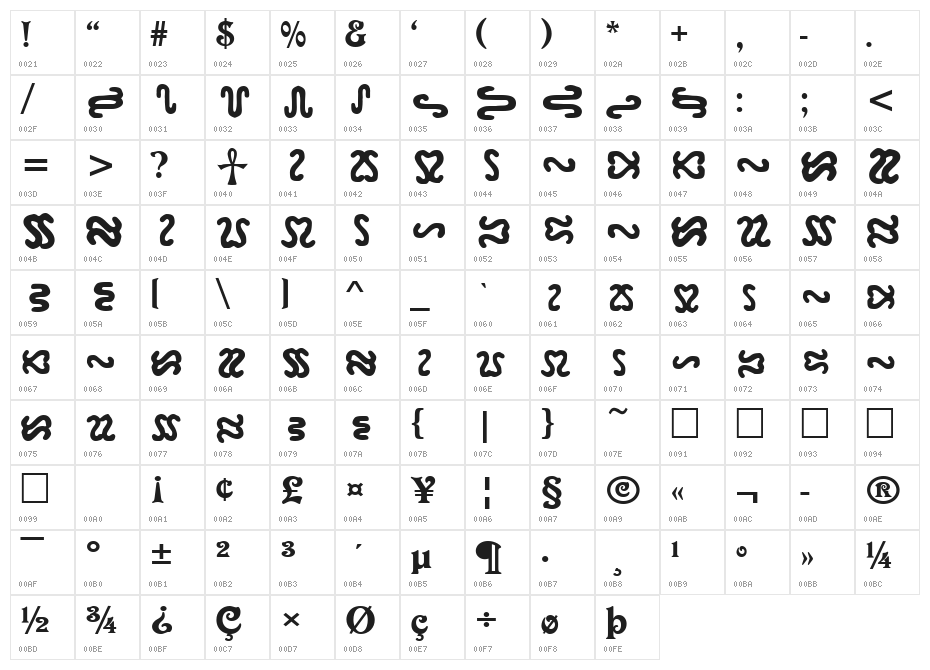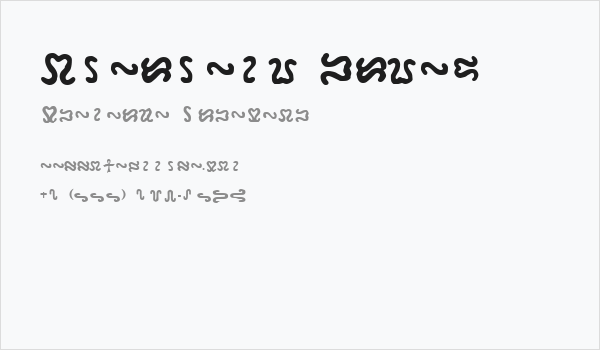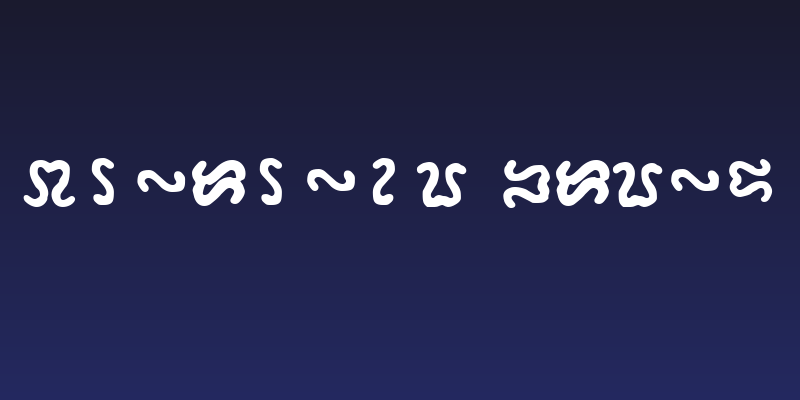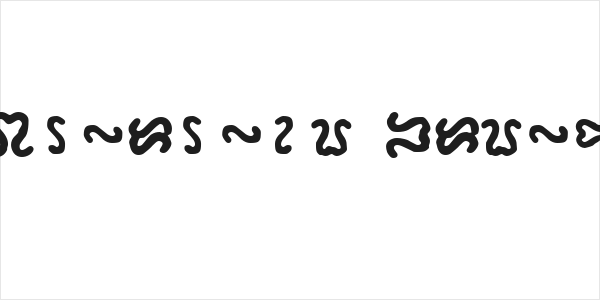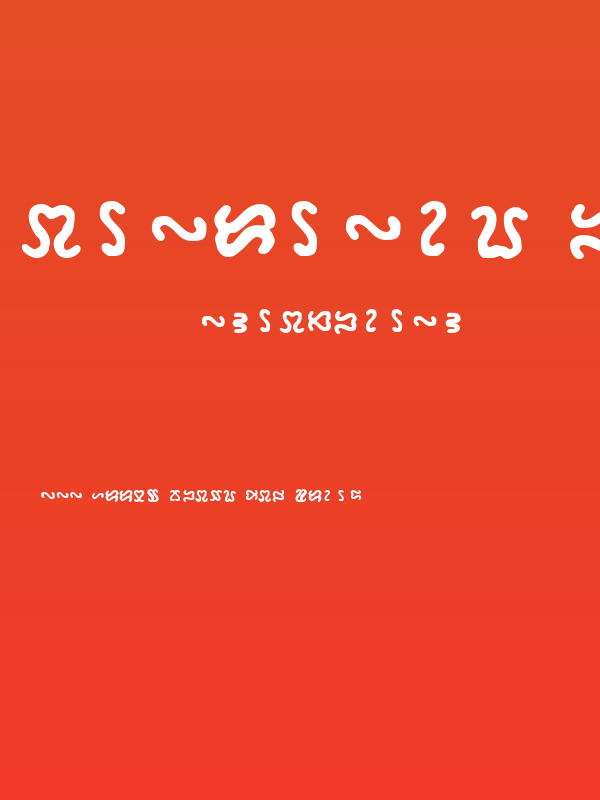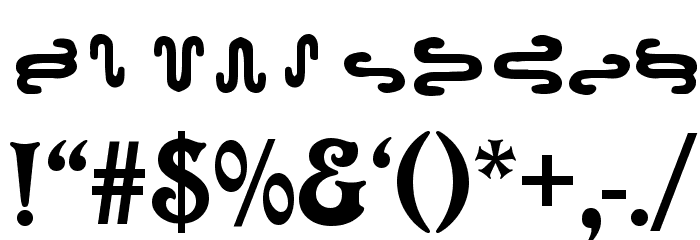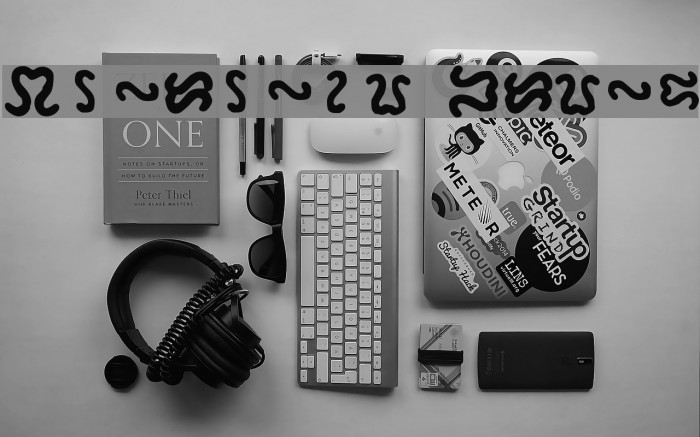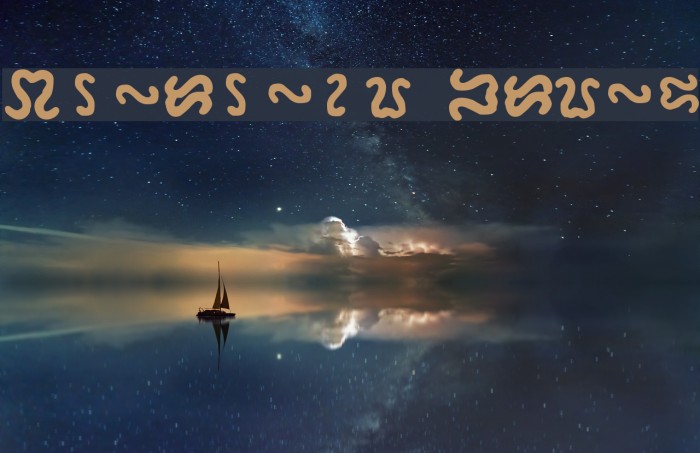
Ophidean Runes Font
Ophidean Runes Description
This font features a unique and intricate design reminiscent of ancient runes or mystical symbols. Each character is crafted with a flowing, serpentine style that gives it an enigmatic and arcane appearance. The strokes are bold and consistent, creating a sense of mystery and depth. The characters are tightly spaced, enhancing the compact and cohesive look of the text. This font is particularly suited for projects that require a touch of the mystical or the esoteric, such as fantasy-themed designs, game interfaces, or book covers. Its decorative nature makes it ideal for headlines or logos where a strong visual impact is desired.
| Overall Style | Mystical, Decorative |
| Proposed Projects | Fantasy-themed designs, game interfaces, book covers, mystical or esoteric branding. |